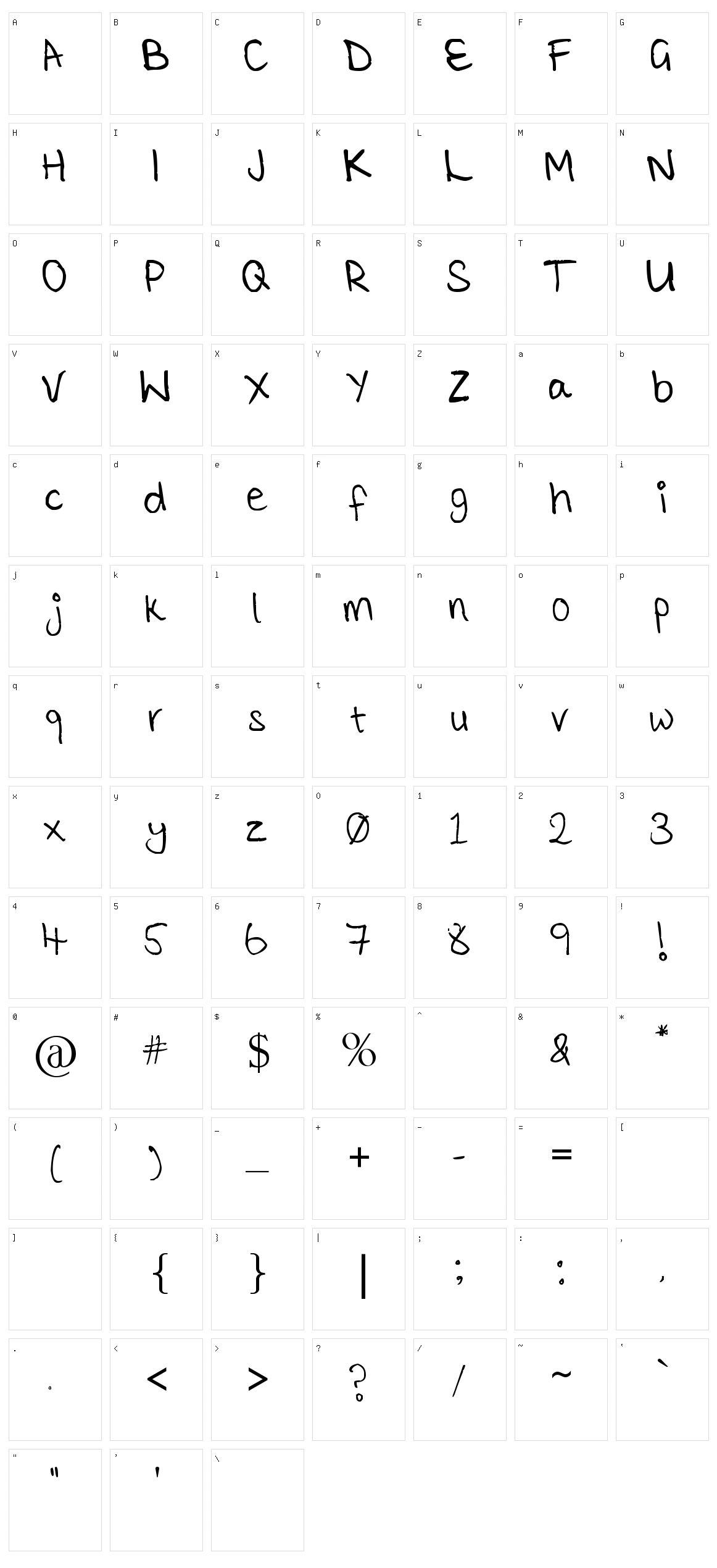
The free font Tickle Me Elmo is carefully designed by Chippy Bowey, showcasing a thoughtful balance of creativity and usability and falls under the Script font style. When you download the ZIP file, it contains only 14.42 KB of font files, making it lightweight and quick to download. Please review the license details below to understand permitted usage and distribution rights. If license information is not available, we recommend using this font for personal projects only or contacting the author directly for commercial usage permissions.